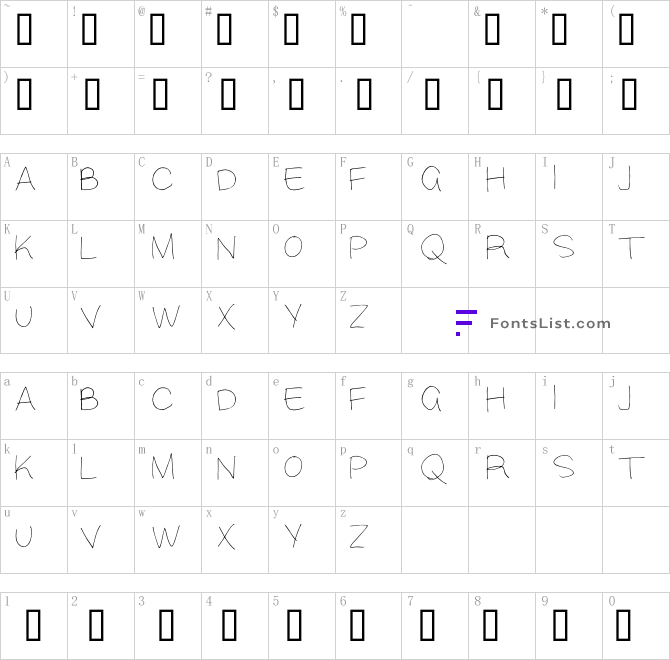
- Font Name:Alisky
Alisky-Regular.otf is a very beautiful artistic font, Alisky-Regular.otf is widely used in the design and printing of various books and pictures,Alisky-Regular.otf has a strong visual impact,Alisky-Regular.otf is a commonly used font in newspapers, magazines and books, and is used in posters, e-commerce Poster design, store design, logo design, font design and other fields.Alisky-Regular.